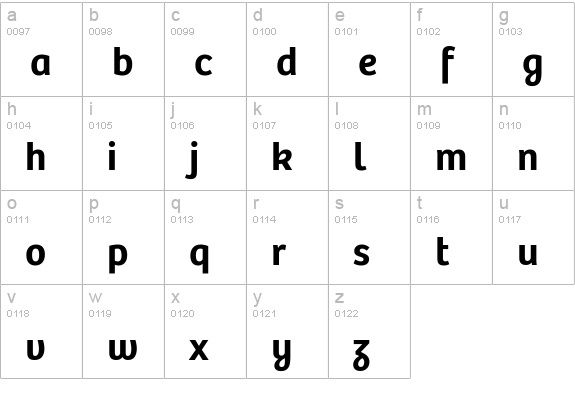
Bree font is a modern and stylish typeface that exudes elegance and sophistication. Its sleek lines and balanced proportions make it a versatile choice for a wide range of design projects. Whether you're creating a logo, website, or printed materials, Bree font will add a touch of class to your work.